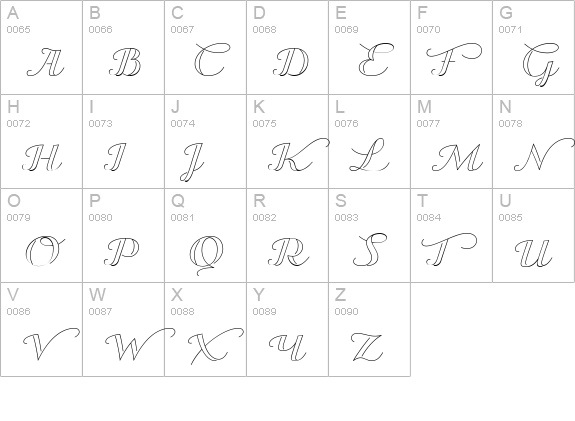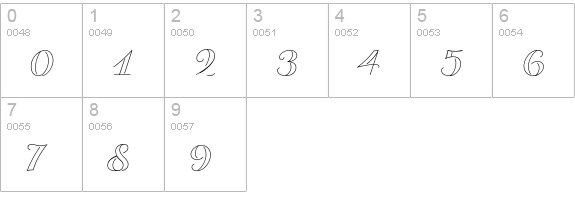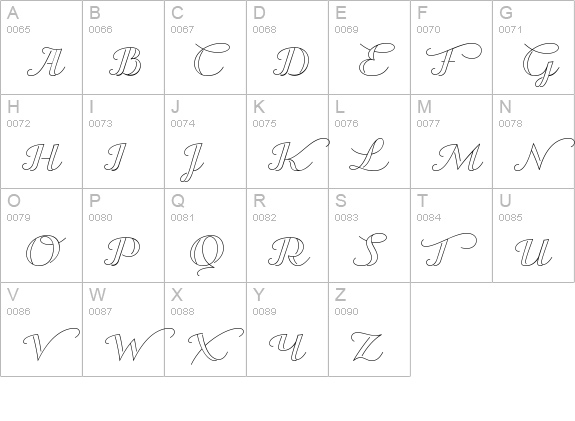
The Transatlantic Cruise Demo font is a stunning display typeface that captures the essence of adventure and elegance. With its graceful curves and intricate details, this font brings a touch of sophistication to any project. Whether you're designing a travel brochure, creating a logo for a luxury cruise line, or adding a unique flair to your personal blog, Transatlantic Cruise Demo is sure to make a lasting impression. What sets this font apart is not only its exquisite design, but also its availability. Unlike many other fonts on the market, Transatlantic Cruise Demo is freely available to download at FontsMarket.com. This means that you can use this font for any personal or commercial project without having to worry about any licensing fees or restrictions. It's the perfect choice for designers on a budget or anyone who wants to add a touch of elegance to their creations without breaking the bank. The versatility of Transatlantic Cruise Demo is also worth noting. It works well in both small and large sizes, making it suitable for a variety of applications. Whether you're looking to create eye-catching headlines, elegant invitations, or stylish packaging, this font can adapt to your needs with ease. The attention to detail in Transatlantic Cruise Demo is truly remarkable. Each letter is meticulously crafted, with delicate serifs and flowing lines that give the font a sense of timeless beauty. The uppercase letters command attention, while the lowercase letters add a touch of refinement. The overall result is a font that exudes confidence and sophistication. So why wait? Download Transatlantic Cruise Demo for free at FontsMarket.com and embark on a typographic journey like no other. With its stunning design, versatility, and affordability, this font is the perfect choice for anyone looking to make a statement with their designs. Whether you're a professional designer or a DIY enthusiast, Transatlantic Cruise Demo will elevate your projects to new heights.